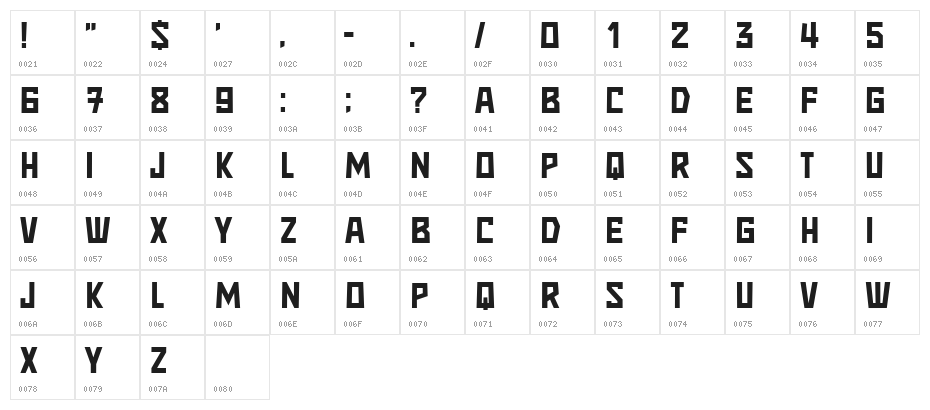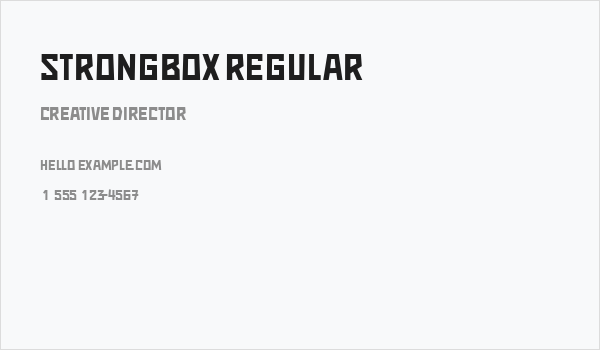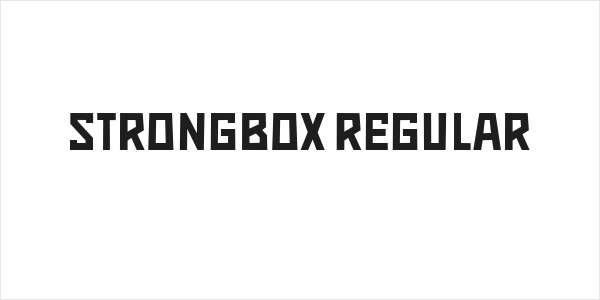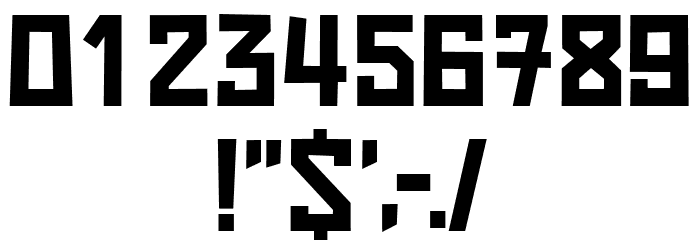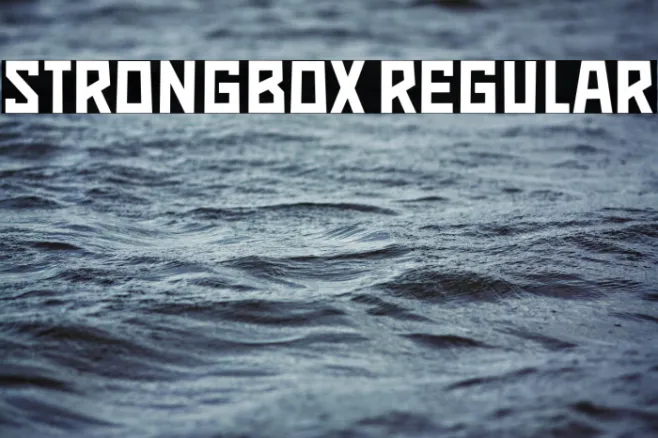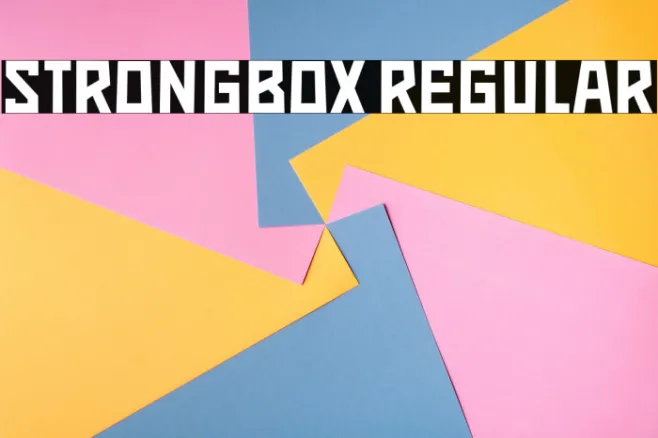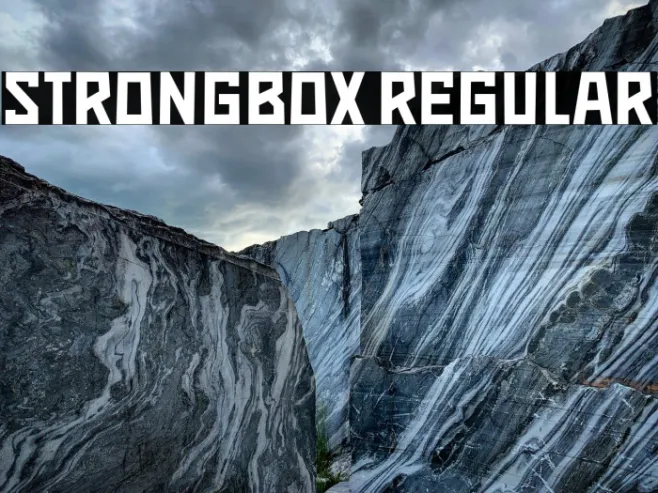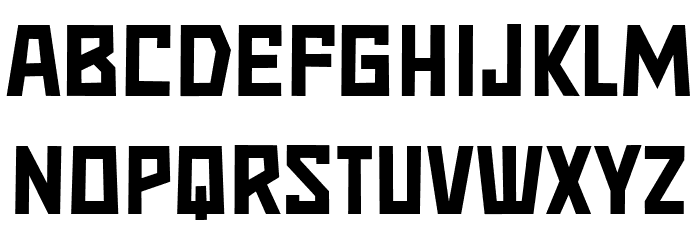
Strongbox Regular Font
Strongbox Regular Description
This font features a bold, geometric style with strong, angular lines and a modern aesthetic. The characters are uniformly thick, giving them a robust and sturdy appearance. The uppercase letters are particularly striking with their sharp edges and clean lines, while the lowercase letters maintain a consistent style that complements the uppercase. The numerals are equally bold, ensuring readability and impact. Special characters are designed to match the overall boldness and geometric nature of the font, making it suitable for attention-grabbing designs.
| Proposed Projects | Ideal for branding, posters, headlines, and any design requiring a strong visual impact. |